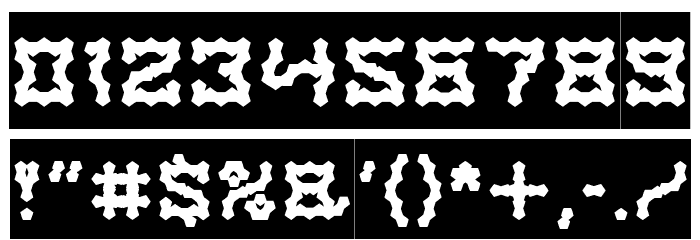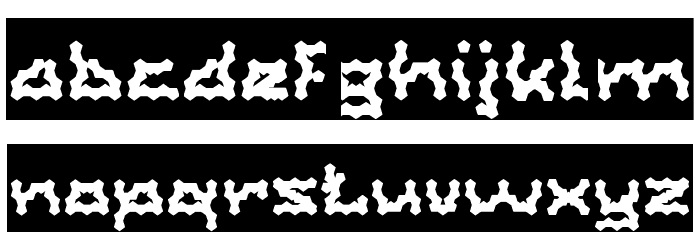
Shake It Off-Inverse Font
Shake It Off-Inverse Description
This font features a unique, wavy design that gives each character a playful and dynamic appearance. The letters are bold and have a distinctive, irregular outline that resembles a fluid motion, making them stand out dramatically against the background. The uppercase and lowercase letters maintain this energetic style, with consistent thickness throughout. Numbers and special characters follow the same design principles, ensuring a cohesive look across all glyphs. This font's quirky and lively nature makes it ideal for projects that require a fun and eye-catching aesthetic.
Proposed ProjectsIdeal for children's books, party invitations, playful branding, and creative posters.